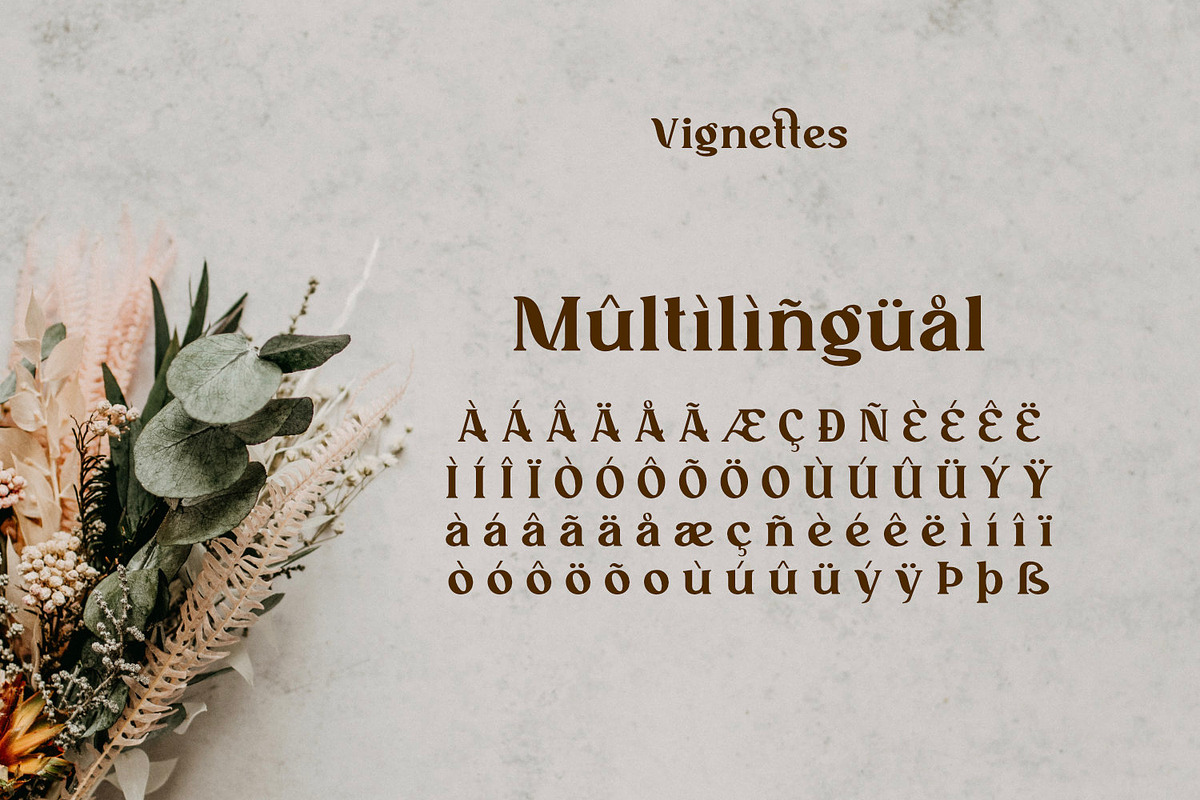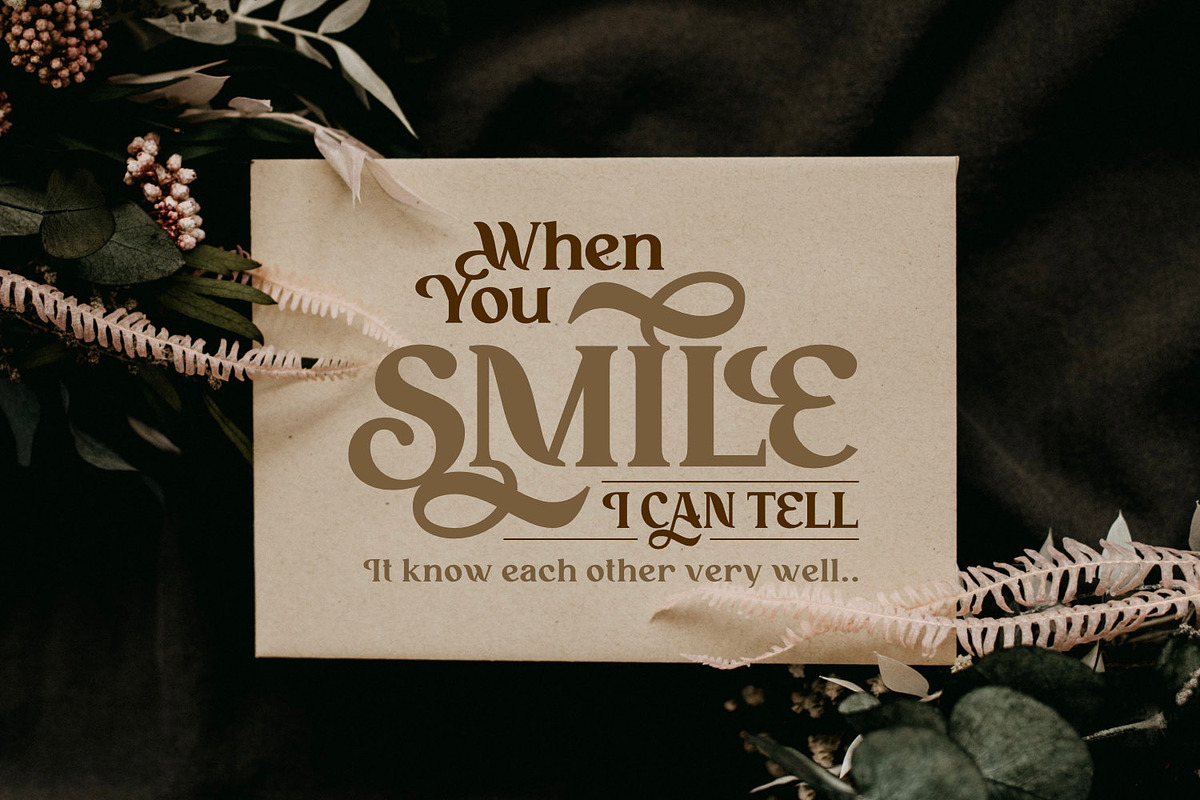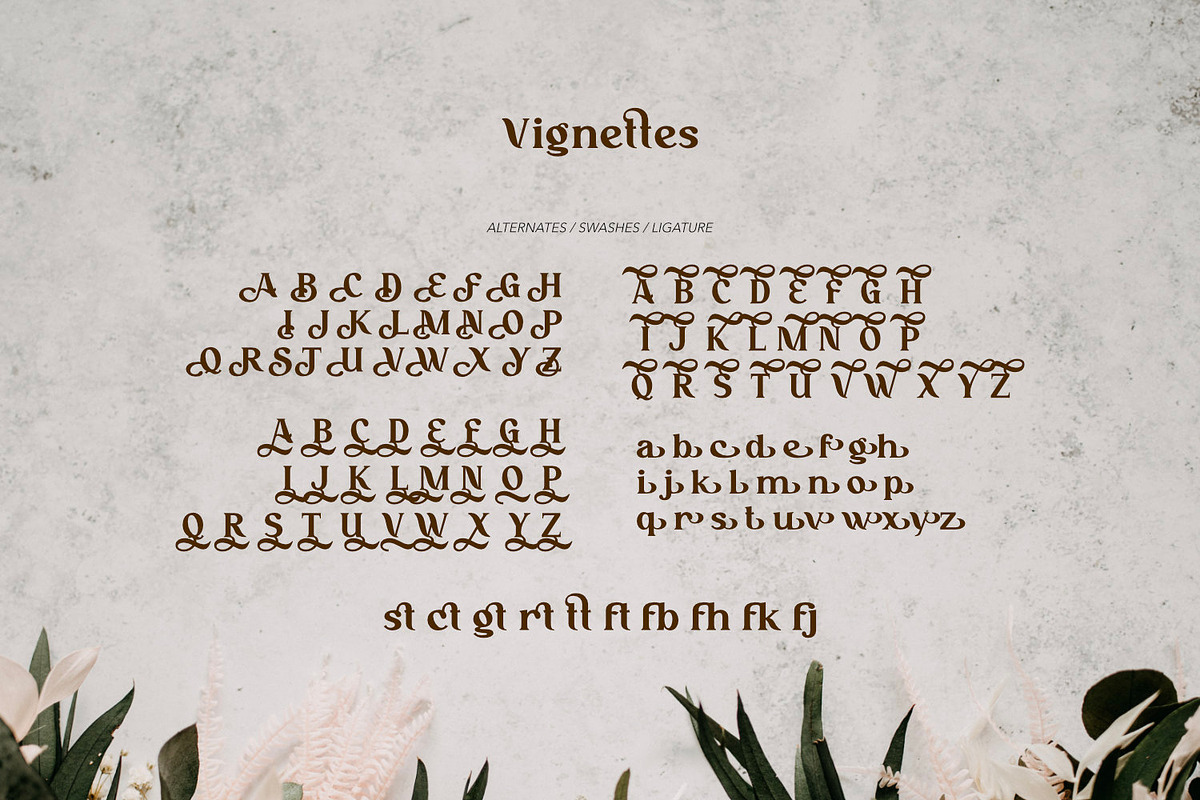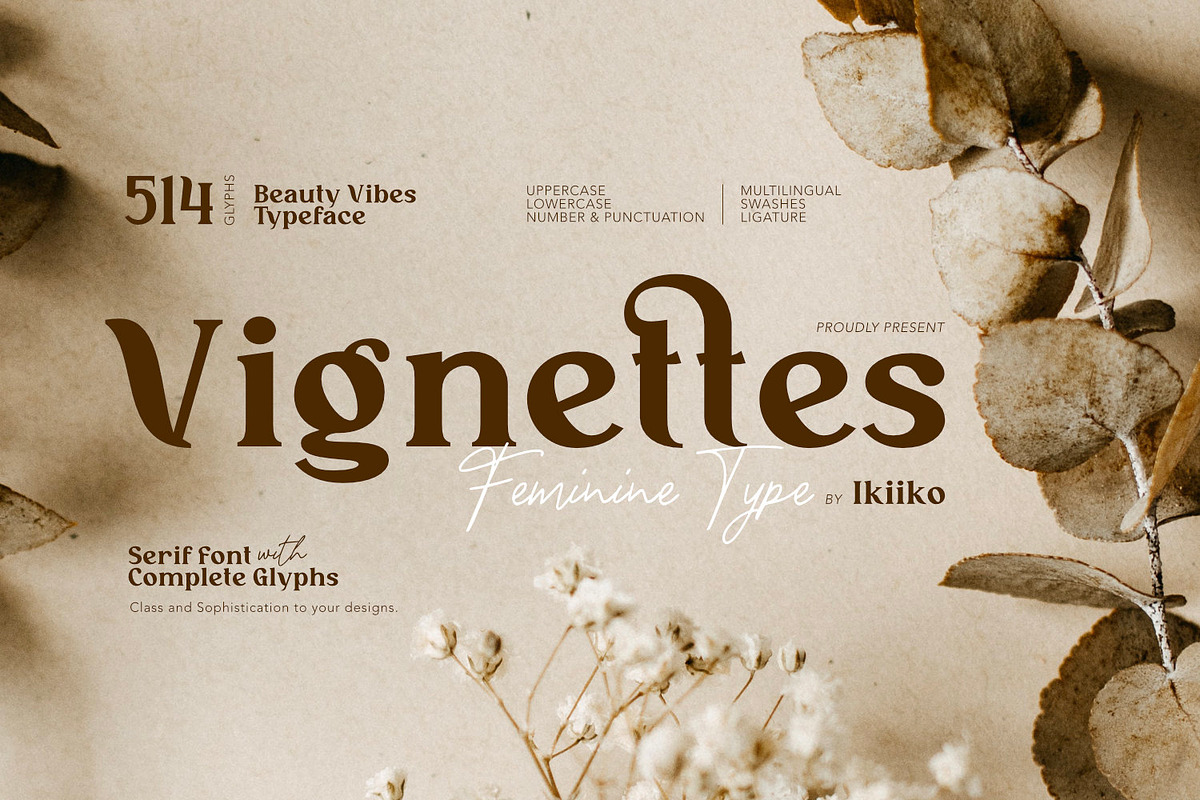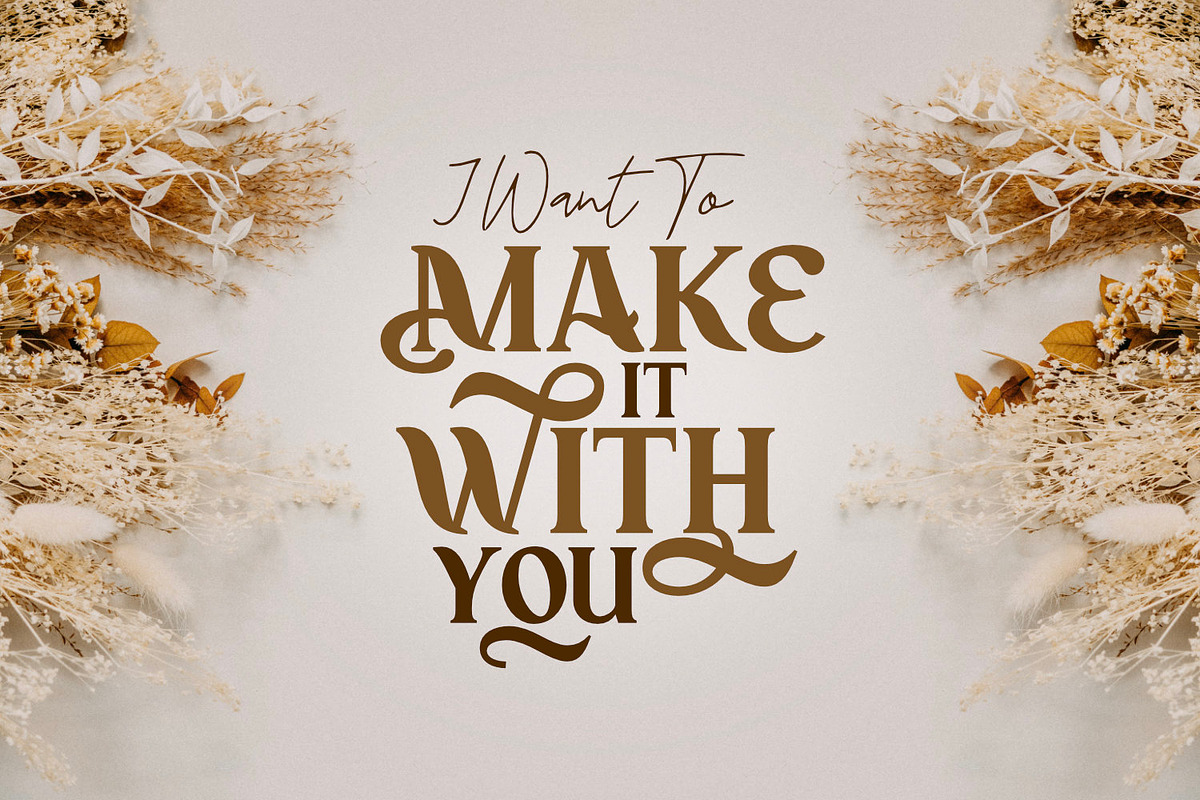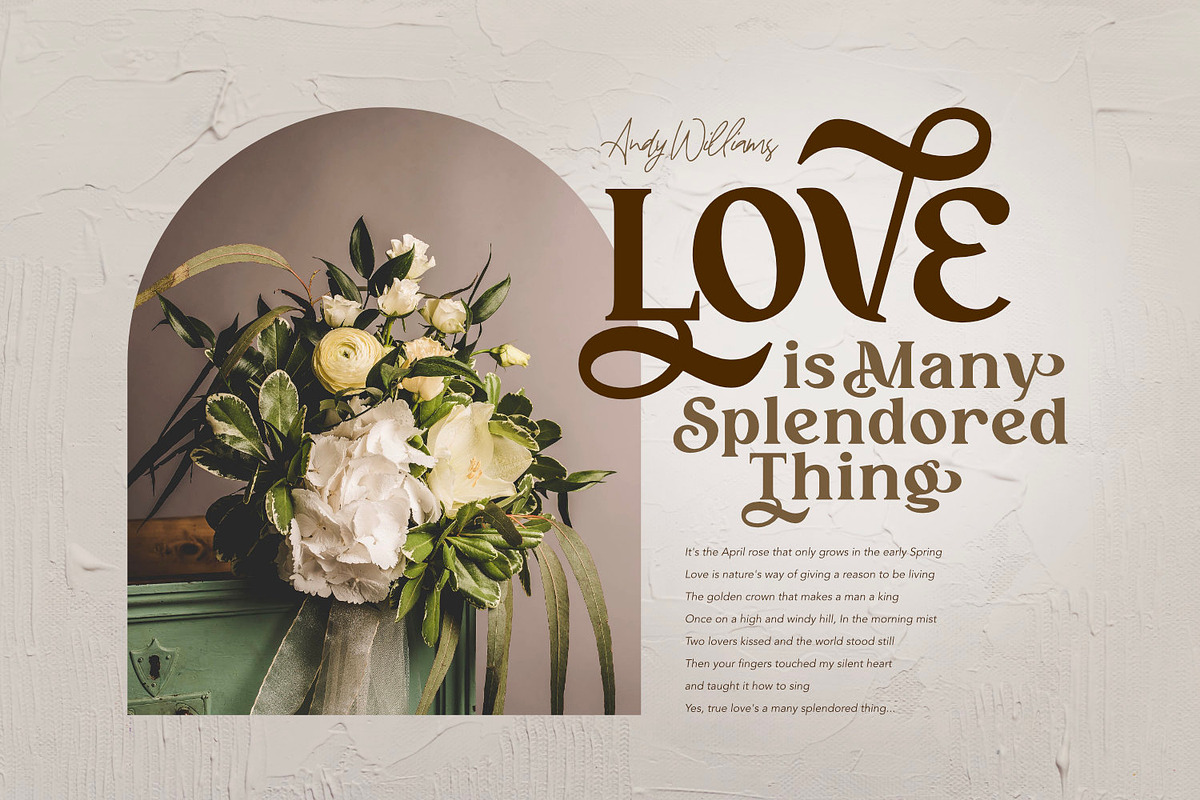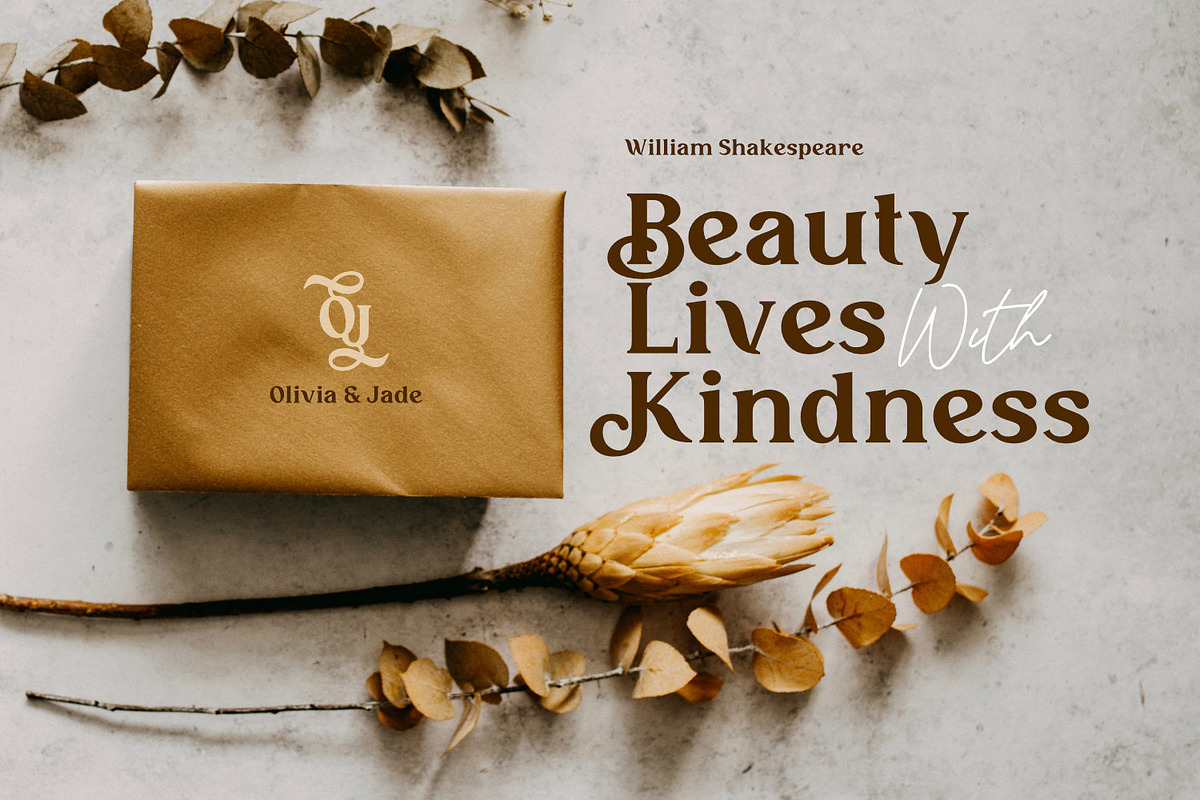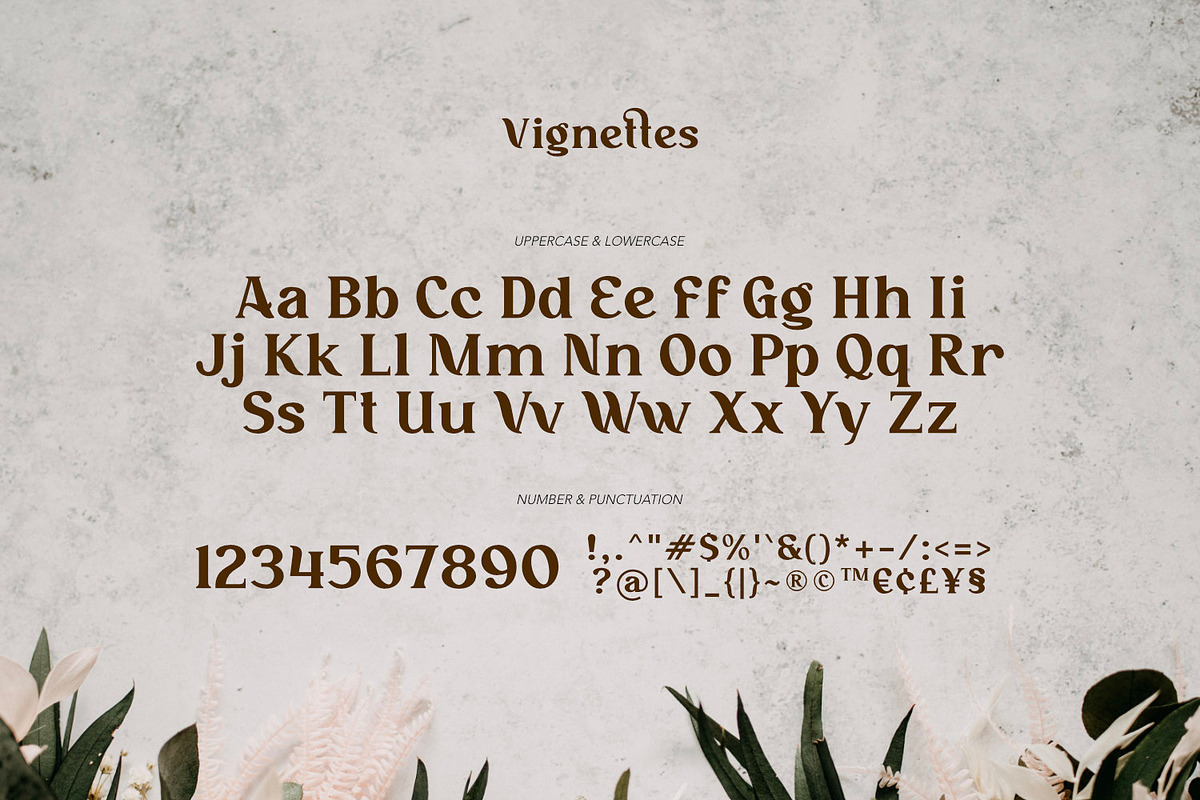
Vignettes - Feminine Type
Introducing Vignettes - Feminine Type, created by ikiiko.
Vignettes is a traditional serif typeface with many unique decorative features. You can choose the type of decoration that suits what you need. Vignettes also have bold font characters with elegant and feminine shapes. This typeface is perfect for an elegant logo, branding, wedding, invitation, layout magazine, home & decor layout, beauty product, packaging product, quotes, or simply as a stylish text overlay to any background image.
- Number & Punctuation
- Swashes & Ligature